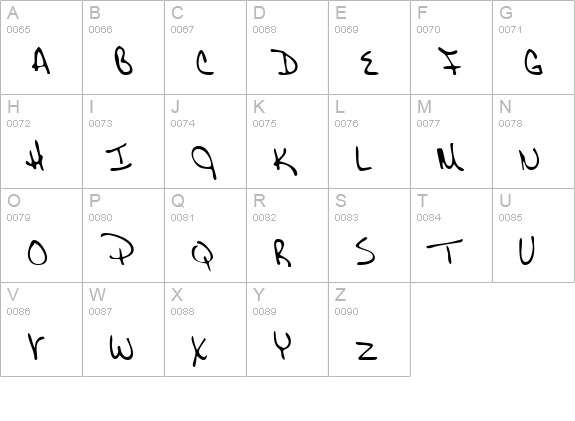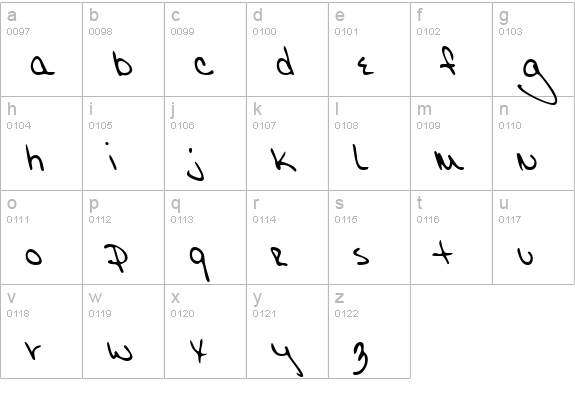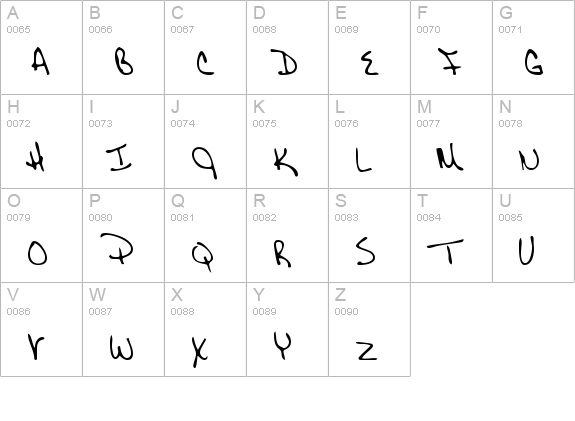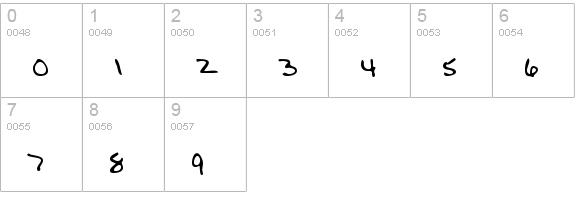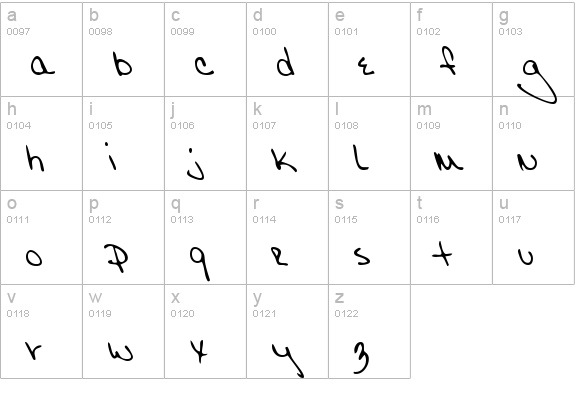
JolenesHand Regular Font Details
JolenesHand Regular is the standard, neutral variant in the JolenesHand typeface family \xE2\x80\x94 well suited to general body text, paragraphs, and standard typographic work.
JolenesHand Regular font is a charming and versatile typeface that exudes a sense of whimsy and creativity. Its hand-drawn style gives it a unique and personal touch, perfect for adding a playful element to your designs. Whether you're looking to create invitations, greeting cards, posters, or any other project that requires a touch of handmade flair, JolenesHand Regular is sure to impress. This delightful font is freely available to download at FontsMarket.com, making it easily accessible to designers and creatives looking to enhance their work with a touch of individuality. With its smooth lines and organic feel, JolenesHand Regular is the perfect choice for adding a touch of warmth and character to your projects. Don't miss out on this fantastic font - download it today and let your creativity shine!